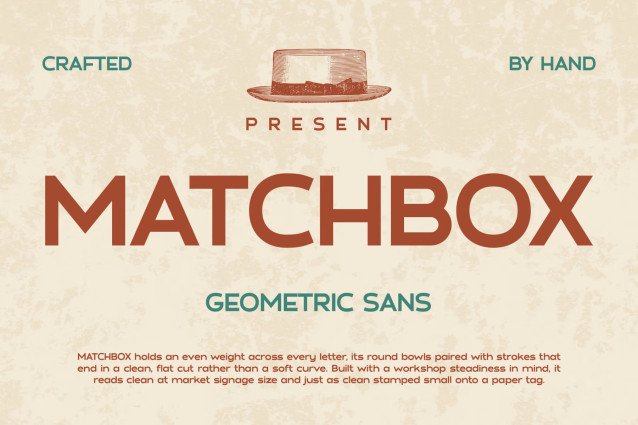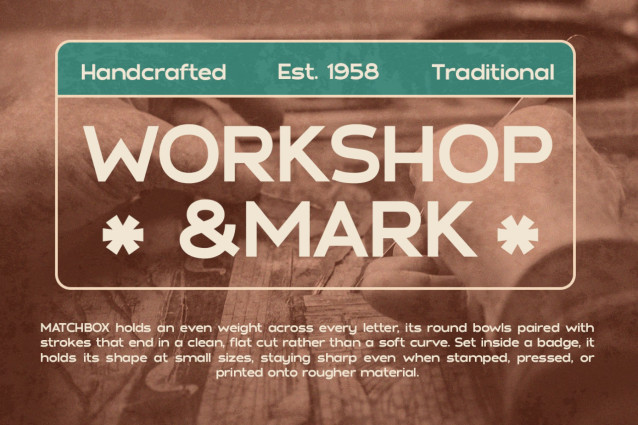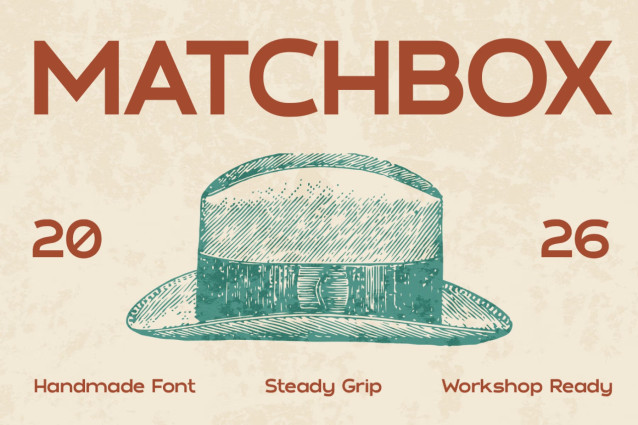
MATCHBOX – Handcrafted Retro Style, Bold Geometry & Timeless Workshop Character
Retro Font MATCHBOX brings a warm, handcrafted personality. It draws inspiration from vintage workshops, artisan tools, old matchboxes, and heritage labels. Moreover, its bold geometric structure gives the letters a strong presence. Sturdy shapes and balanced proportions create a nostalgic look. At the same time, MATCHBOX adds a fresh modern edge. Furthermore, its clean letterforms keep headlines clear and easy to read. Meanwhile, subtle handmade details add extra personality. As a result, MATCHBOX feels both practical and expressive. In addition, MATCHBOX works well across many design styles. Its strong display presence makes headlines stand out. Plus, Multilingual Support (67 Languages) helps you reach a wider audience.